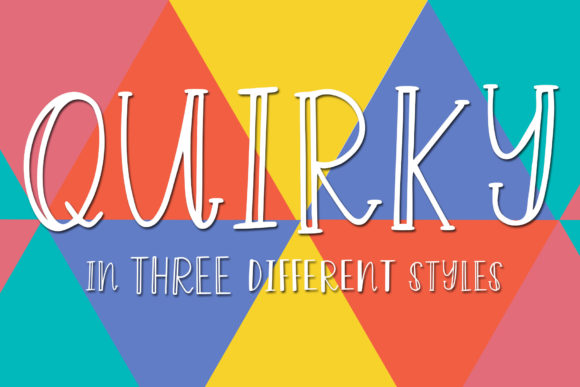
Welcome to the captivating world of the Quirky Font, a typographic treasure that exudes fun, creativity, and boundless charm. Designed with passion and precision by the talented dansiedesign, this font family is a symphony of styles that will transform your digital creations into extraordinary visual experiences.
As a serif font, the Quirky Font possesses an innate elegance and timeless appeal. Its delicate serifs add a touch of sophistication and charm to every letterform, lending a sense of refined playfulness to your designs. The result is a font that is both eye-catching and versatile, capable of adding a unique touch to any project.
But what sets the Quirky Font apart from the crowd is its infectious spirit of fun. This font is not just a collection of letters; it's an expression of joy and creativity. Its playful and whimsical design is sure to bring a smile to your face and ignite your imagination. Whether you're crafting eye-catching branding, playful stationery, or vibrant social media posts, the Quirky Font will infuse your creations with an undeniable sense of excitement and delight.
With its three distinct styles – regular, solid, and serif – the Quirky Font offers a versatile range of options to suit any creative vision. The regular style is a classic choice, perfect for adding a touch of quirky charm to your designs. The solid style exudes a bolder, more impactful presence, making it ideal for headlines, posters, and other attention-grabbing applications. And the serif style adds a layer of sophistication and elegance, making it a beautiful choice for branding, wedding invitations, and other formal projects.
The Quirky Font is more than just a font; it's a creative companion that will accompany you on your design journey, providing endless opportunities for self-expression and delight. Its boundless versatility makes it a perfect fit for a wide range of projects, from branding and packaging to social media and web design. Unleash your creativity and let the Quirky Font lead you to new heights of typographic artistry.